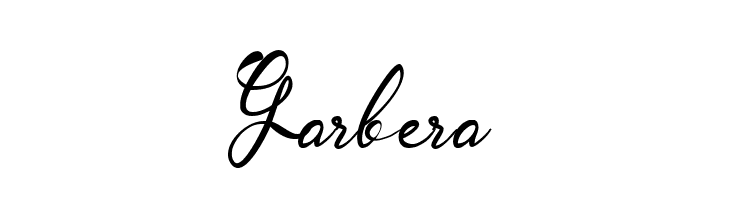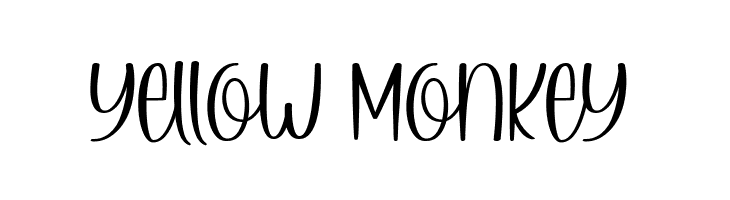
An elegant script font with flowing, cursive letters and intricate swashes.
A sleek, thin, and italicized font with a modern aesthetic.
A bold, jagged font with sharp, thorny edges, ideal for Halloween themes.
A bold, left-leaning font with sharp angles and a modern, dynamic style.
A modern, geometric, and condensed font with consistent stroke weight.
A graceful, handwritten script font with elegant, flowing strokes.
A dynamic, expressive handwritten font with fluid strokes and medium contrast.
A playful, handwritten font with tall, narrow letters and a casual style.
An elegant, flowing script font with a delicate and artistic flair.